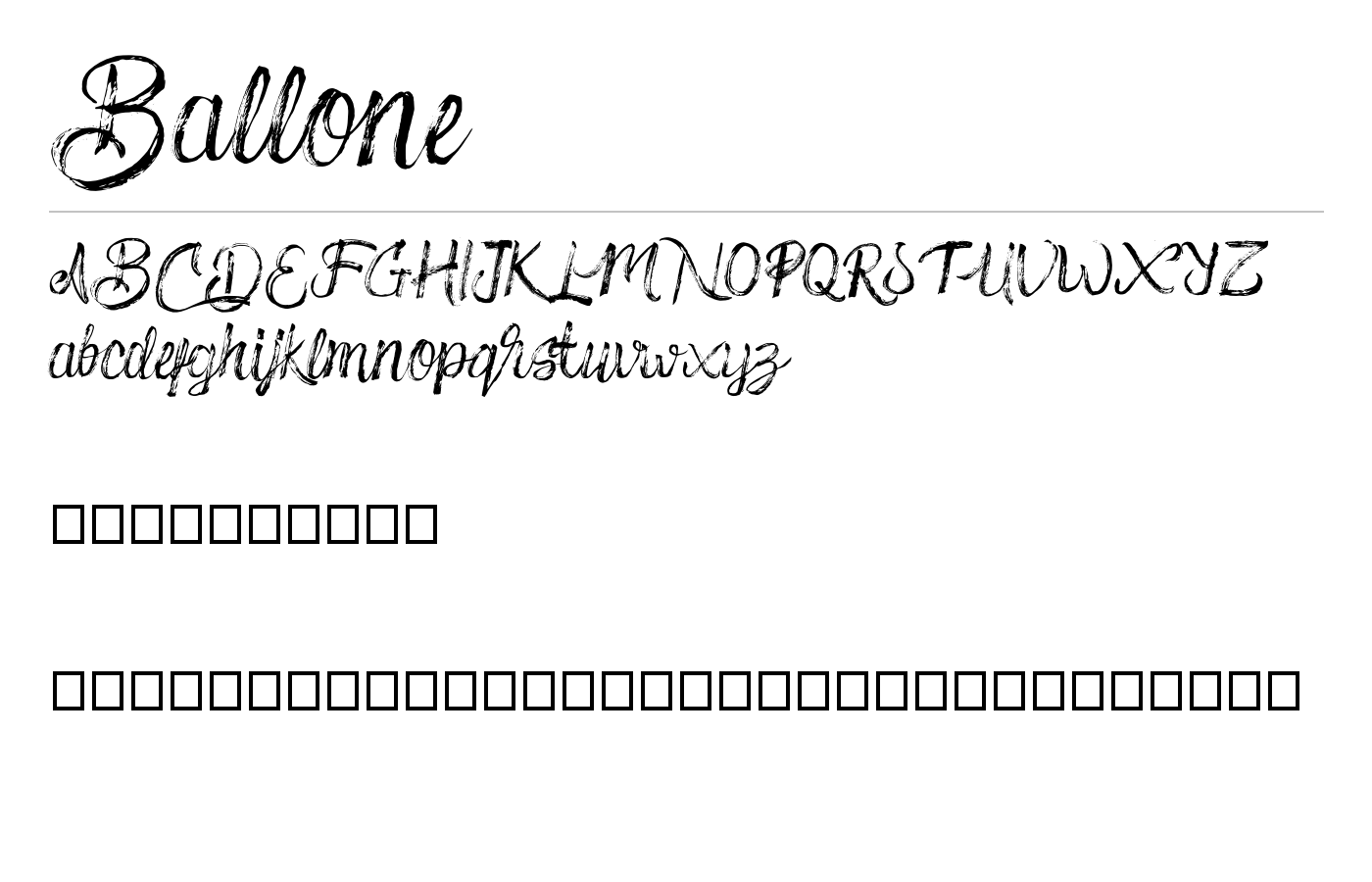
Ballone is a playful and expressive script font that mimics a hand-painted brush style with textured, rough edges adding an artistic, lively feel. Its fluid letterforms and casual elegance make it perfect for creative designs, such as invitations, branding, or posters where a personal, dynamic touch is desired. The font’s unique charm works best in display settings, capturing attention with its bold yet informal character.
Ballone Font